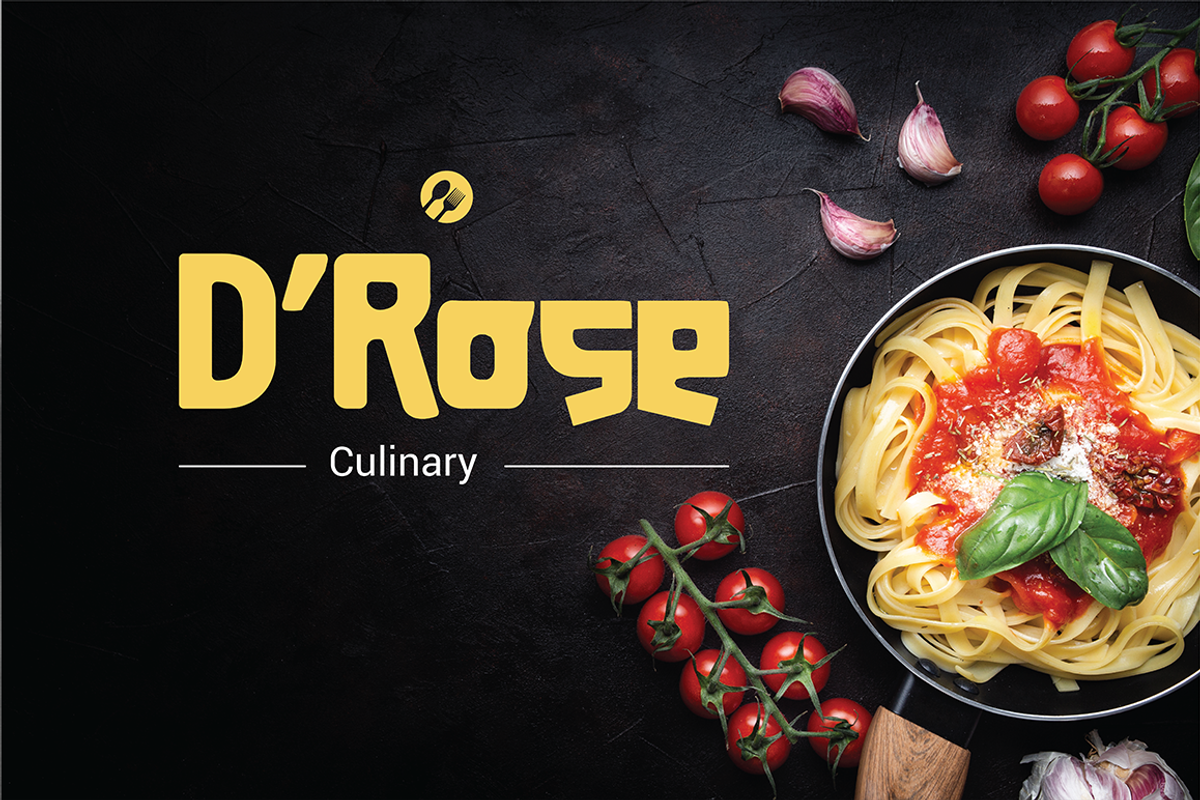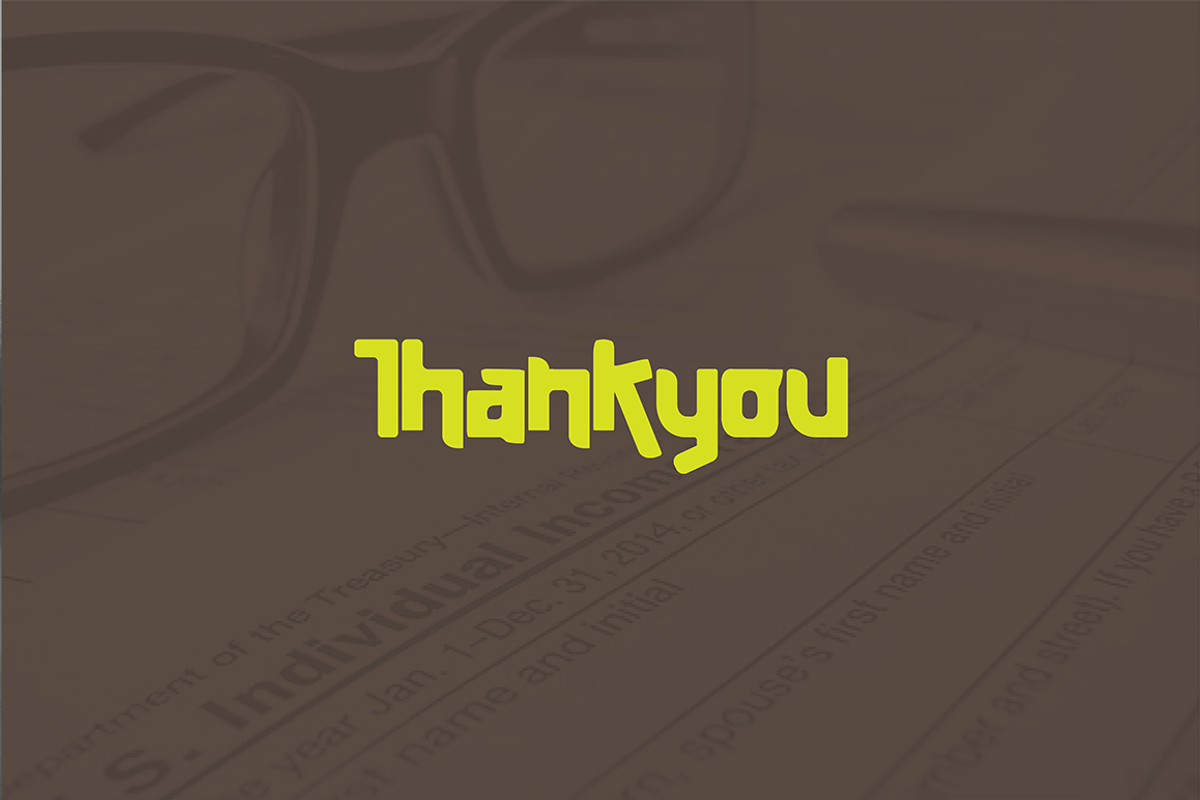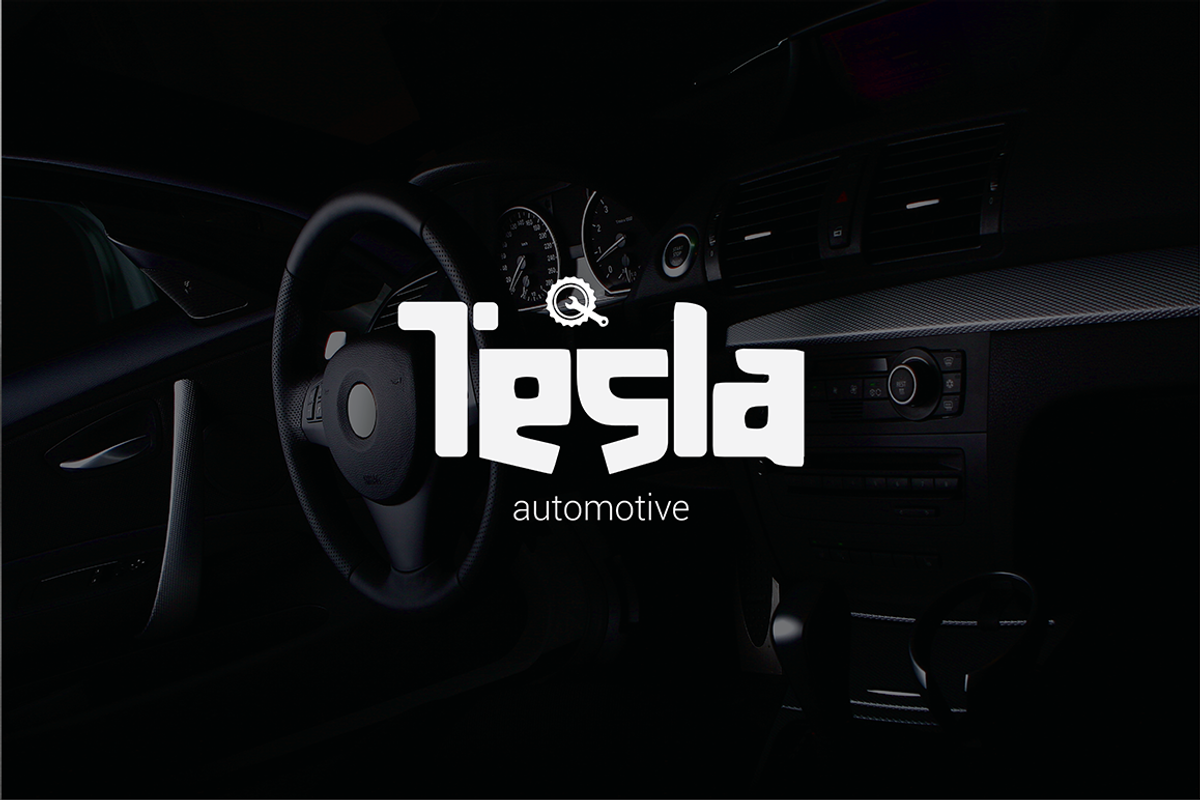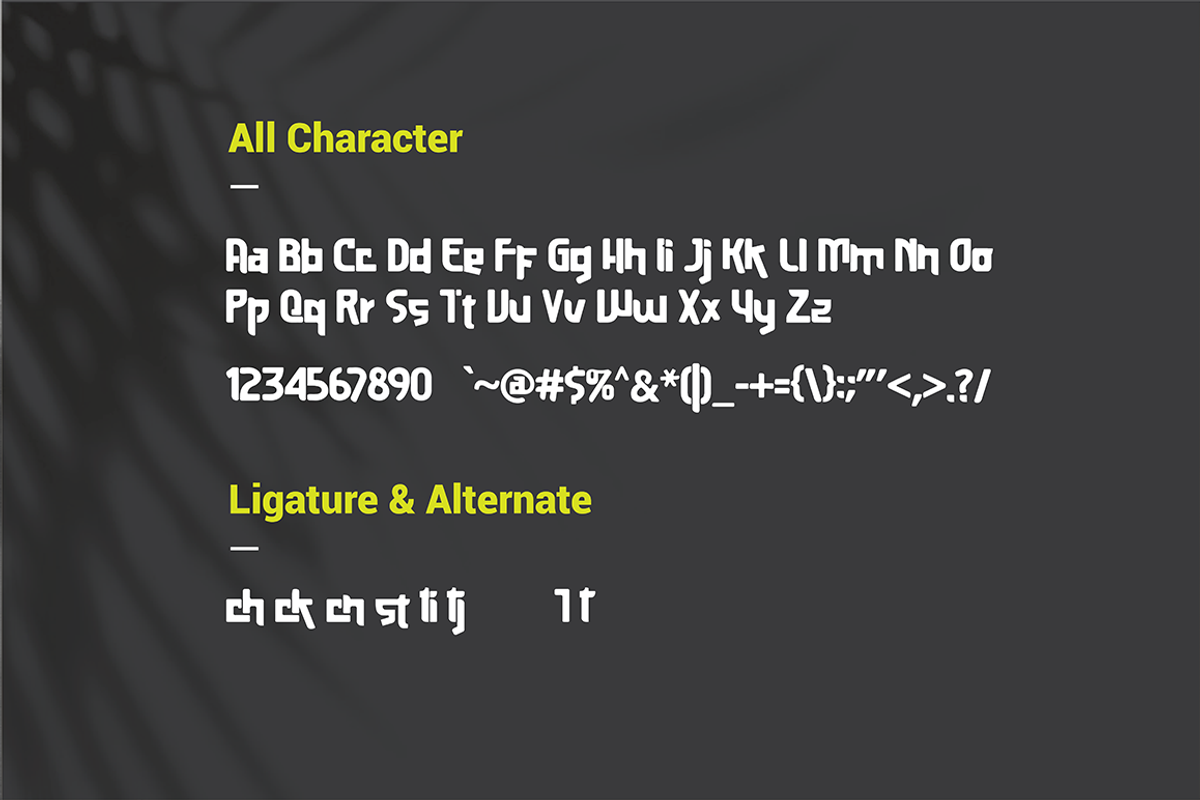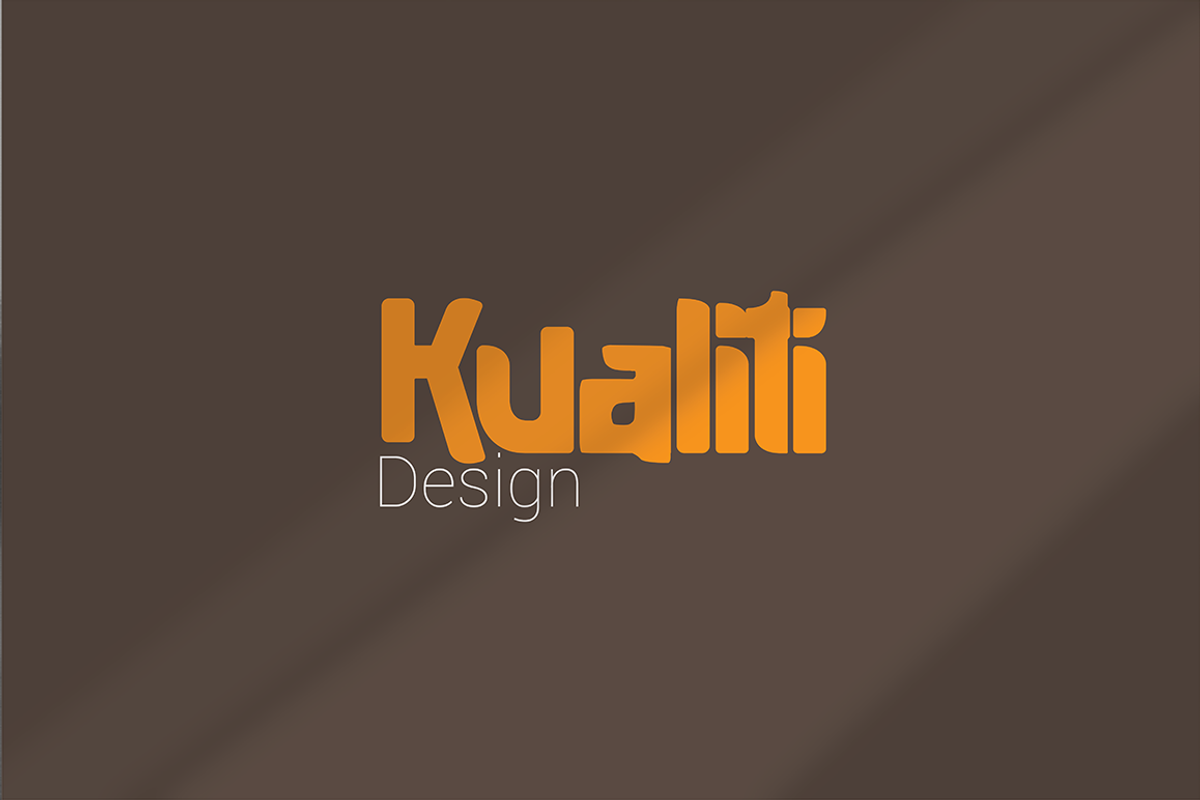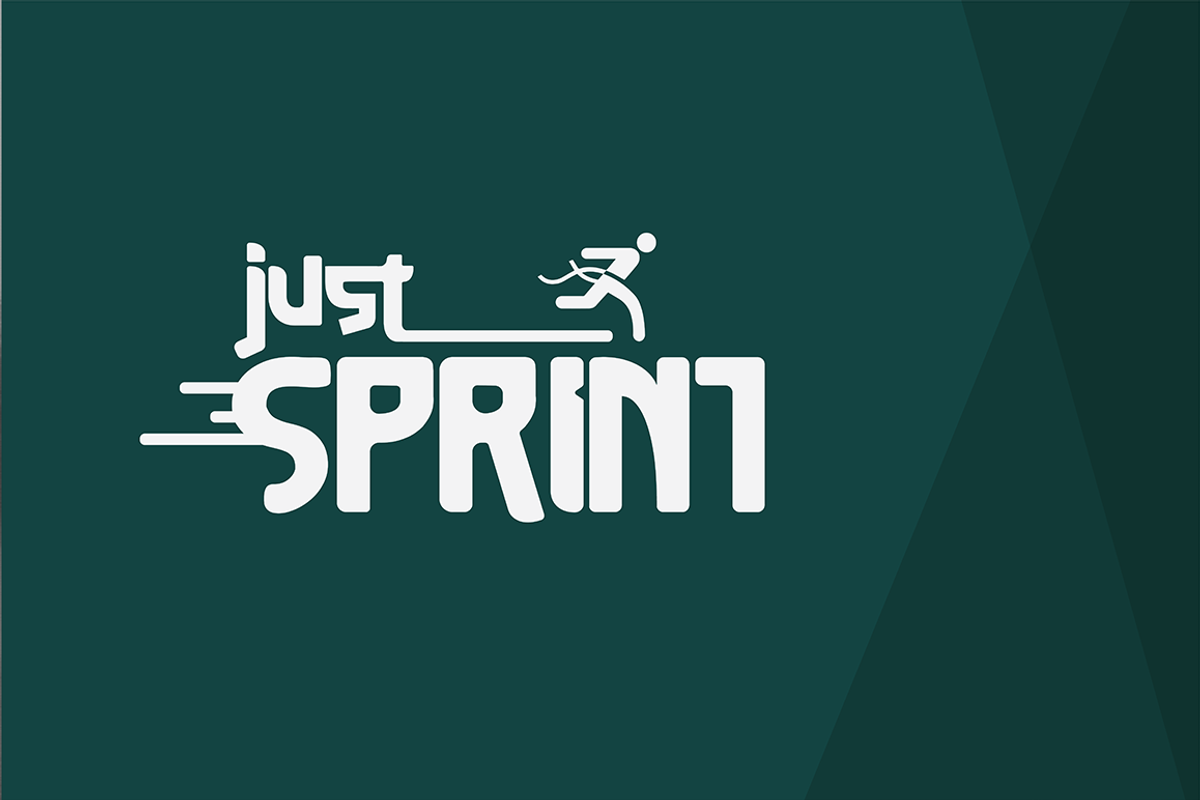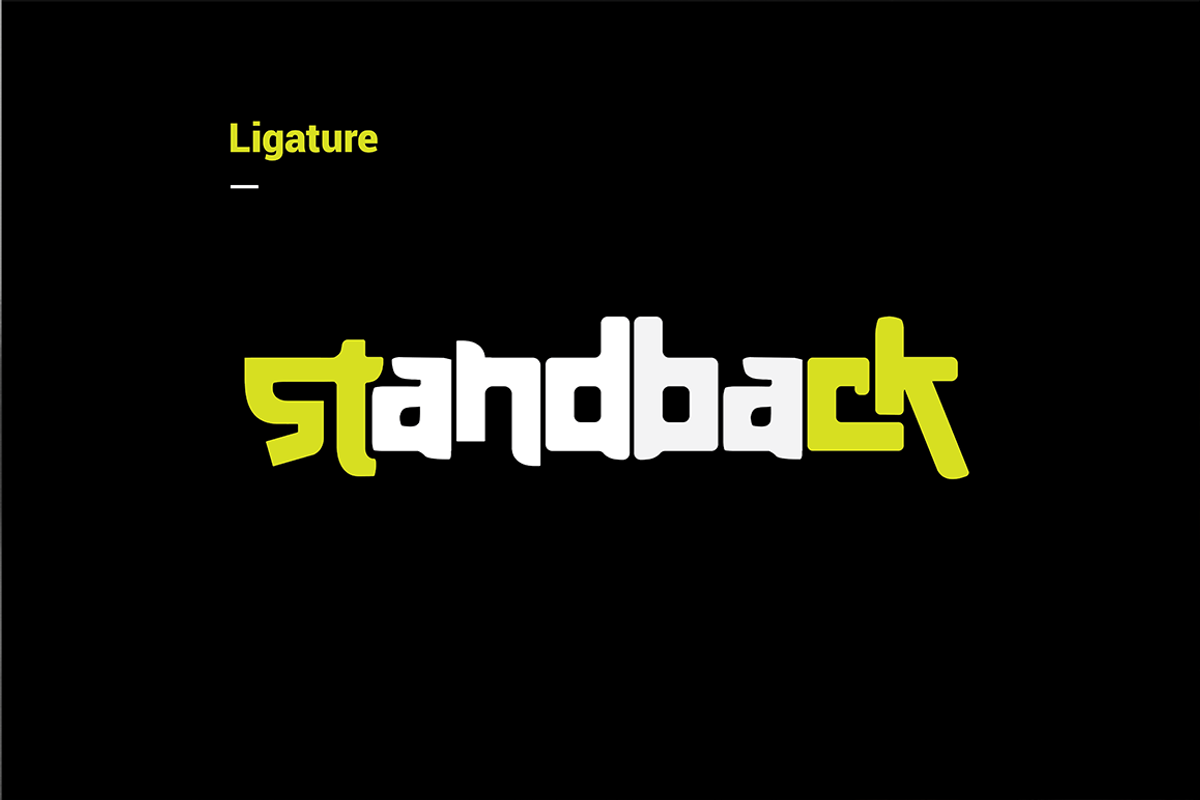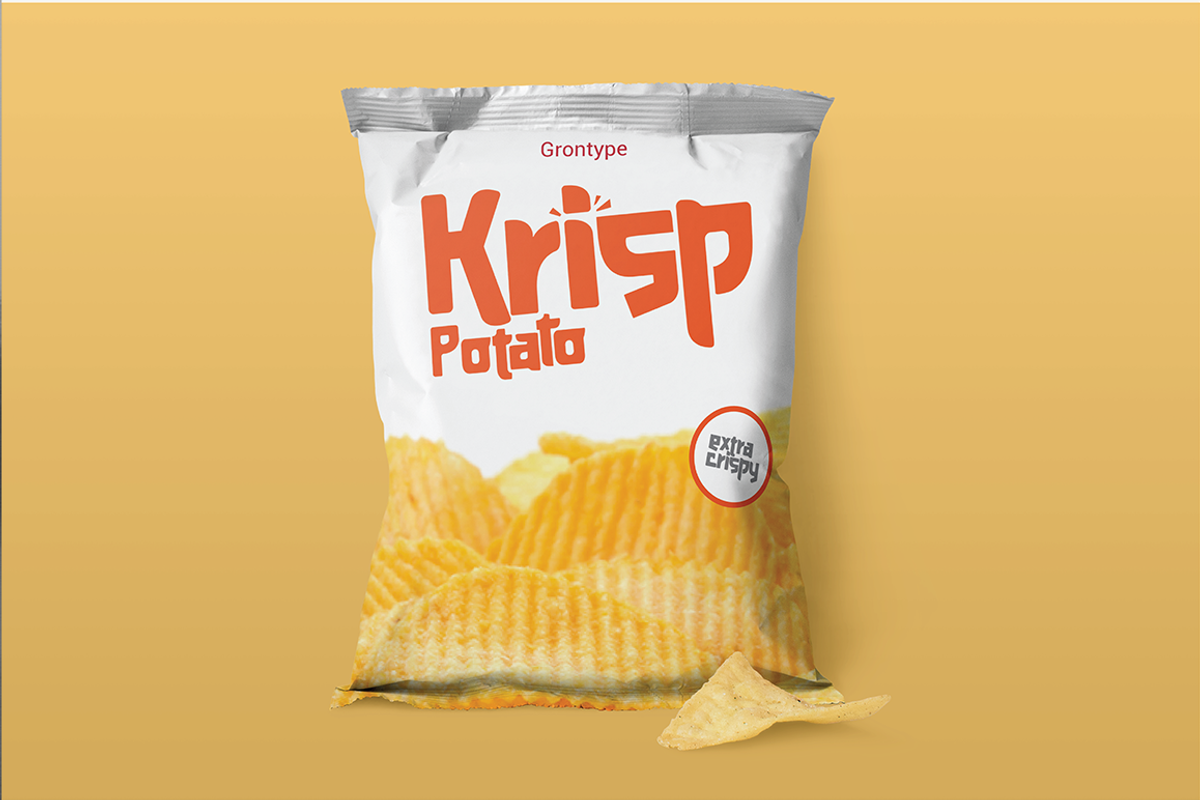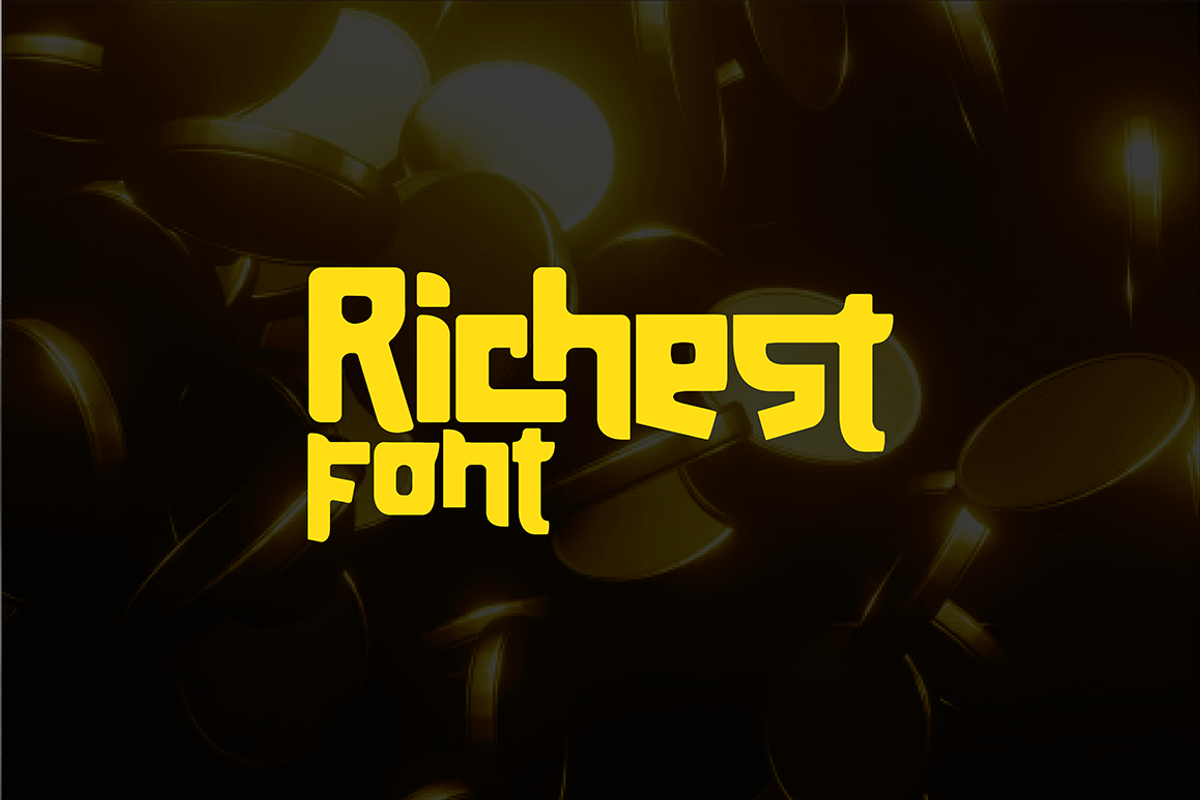
Richest Font
Richest is a very attractive display font, each Fonts has its own uniqueness, is made with great care to produce a good work. Richest font can be used to make flyer banners title, logo, Book or magazine header. it also can be used for product branding
- Alternate Character